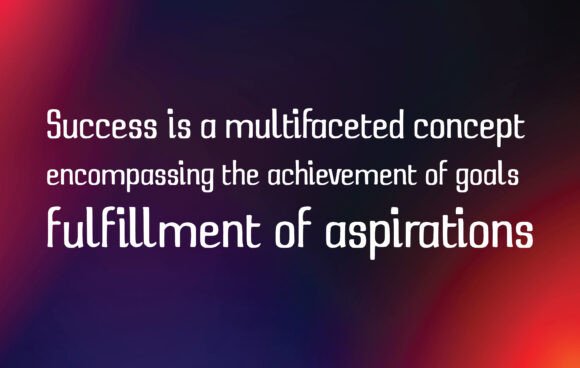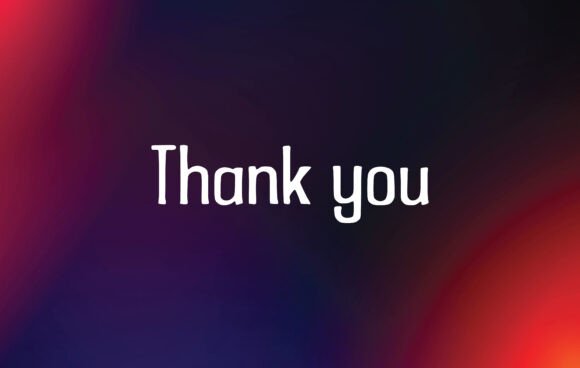
Have you ever stared at a blank page, trying to bring your creative ideas to life? The struggle is real, but what if I told you that there’s a font that could help you overcome that creative block and take your designs to the next level?
Meet the Houston Font, a beautiful handwritten font that’s perfect for creating eye-catching logos, branding, and quotes. With its unique and elegant style, this font is a game-changer for designers who want to make a lasting impression. Whether you’re working on a personal project or a client’s campaign, the Houston Font is a valuable tool that can help you stand out from the crowd and make your designs truly unforgettable.
Houston Font Key Features
- Font Family: Houston Font is a sans-serif font family designed specifically for digital use, making it ideal for web and mobile applications.
- Font Size: Houston Font is designed to be highly legible across a wide range of font sizes, from 8pt to 24pt, making it suitable for various design applications.
- Resolution: Houston Font is designed to be resolution-independent, ensuring it looks crisp and clear at any screen resolution, from 72dpi to 300dpi.
- Unique Characteristics: Houston Font features a unique blend of modern and vintage elements, with a subtle geometric flair that sets it apart from other sans-serif fonts.
- Character Count: Houston Font includes a comprehensive character set, including over 700 glyphs, including international characters, symbols, and punctuation marks.
Houston Font Review
I’ve had the chance to work with the Houston Font, and I must say it’s a mixed bag. On the one hand, it has some great qualities that make it a solid choice for certain projects. ✨
- It’s highly legible, making it perfect for body text and long blocks of content.
- The font is highly customizable, allowing designers to tweak the spacing and style to fit their needs.
- The Houston Font is also available in a wide range of weights, from light to bold, giving designers plenty of options for emphasis.
However, there are some limitations that might make it less suitable for other projects. ⚠️
- The font’s aesthetic is somewhat generic and doesn’t stand out from other sans-serif fonts.
- The Houston Font may not be the best choice for projects that require a lot of fine typography, as the font’s letterforms can be a bit too simplified.
- The font’s x-height is slightly larger than average, which can affect the overall line height and make the text feel a bit too dense.
Overall, the Houston Font is a solid, workhorse font that’s perfect for everyday use. While it may not be the most exciting or innovative font, it gets the job done and is a good choice for projects where legibility and customizability are key.
Houston Font is ideal for use in headings, titles, and body text in various design projects, including:
- Business cards and stationery
- Websites and landing pages
Tips for Getting the Most Out of Houston Font
For optimal results, consider the following tips:
- Pair Houston Font with a clean and simple sans-serif font for body text.
- Use the font in headings and titles to create visual hierarchy.
Alternatives to Houston Font
Montserrat is a sans-serif typeface designed by Julieta Ulanovsky. It’s a modern and sleek font that is perfect for digital interfaces, such as websites and mobile apps. Montserrat is more versatile than Houston Font, with a wider range of weights and styles. It’s also more readable on smaller screens and devices.
Comparison: Montserrat has a more geometric and clean design compared to Houston Font, which has a more rounded and friendly feel. While Houston Font is better suited for branding and creative projects, Montserrat is a better choice for digital products and interfaces.
Open Sans is a sans-serif typeface designed by Steve Matteson. It’s a highly readable and clean font that is perfect for body text and digital interfaces. Open Sans is more neutral and doesn’t have the same level of personality as Houston Font, but it’s a great choice for projects that require a clean and simple design.